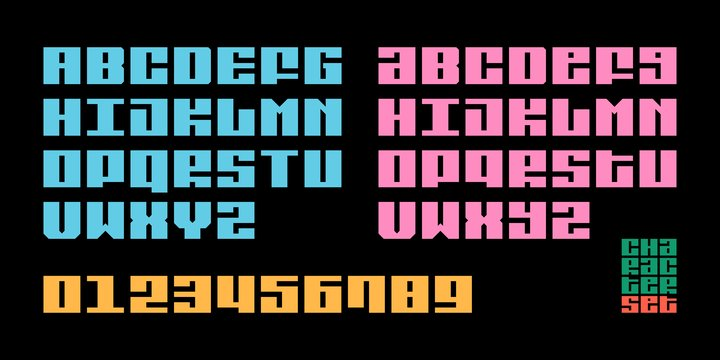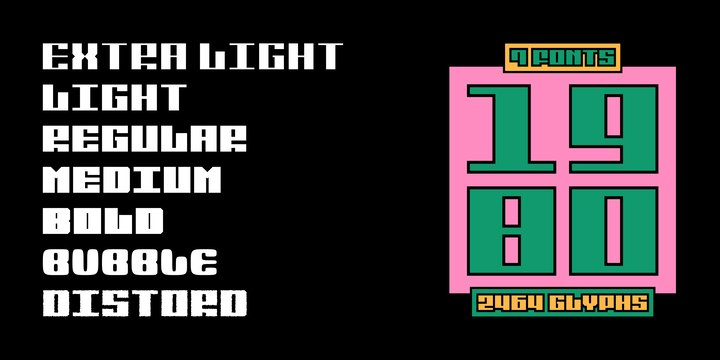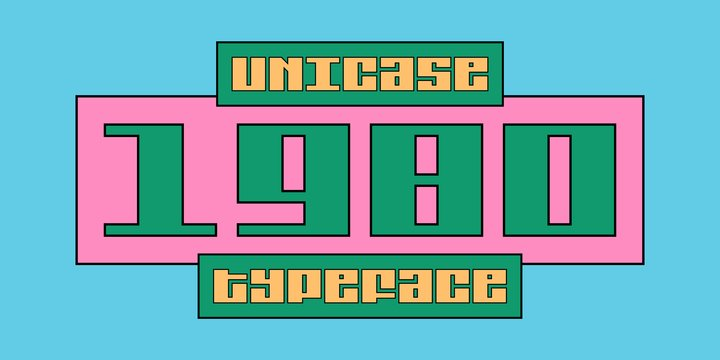
SK 1980 Unicase Font
SK 1980 Unicase FontSK 1980 Unicase is a font that emerged with a modern interpretation of the 80’s design concept. It was specially designed to create structural forms. Each character is the same size, so you can create structural designs without any difficulty.